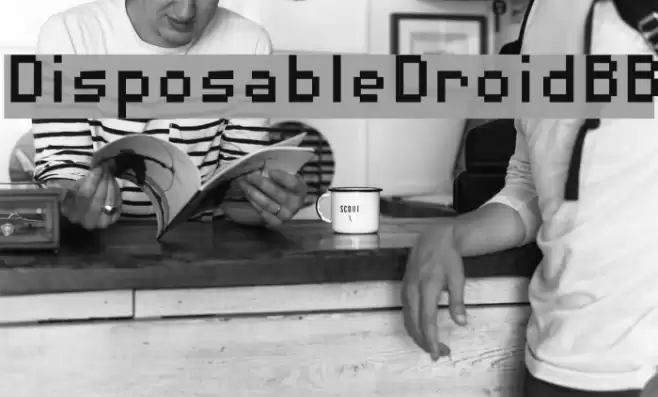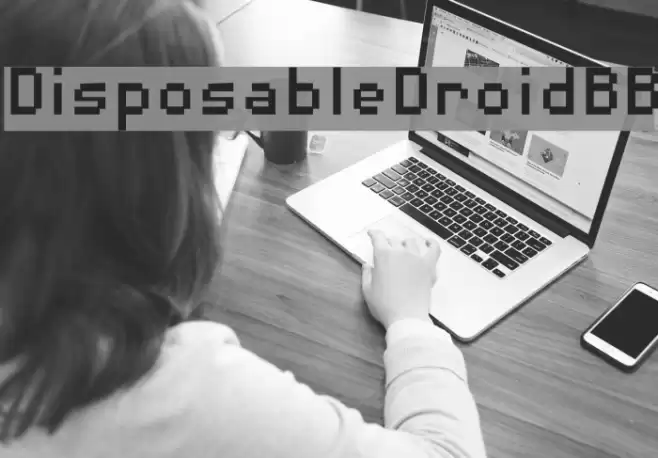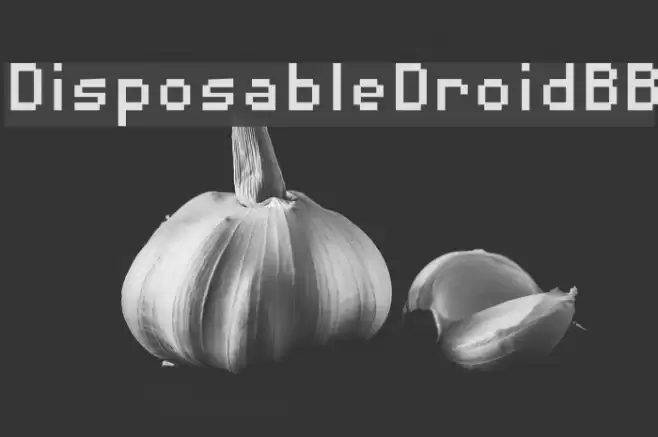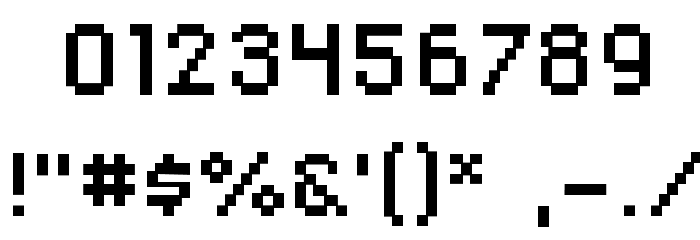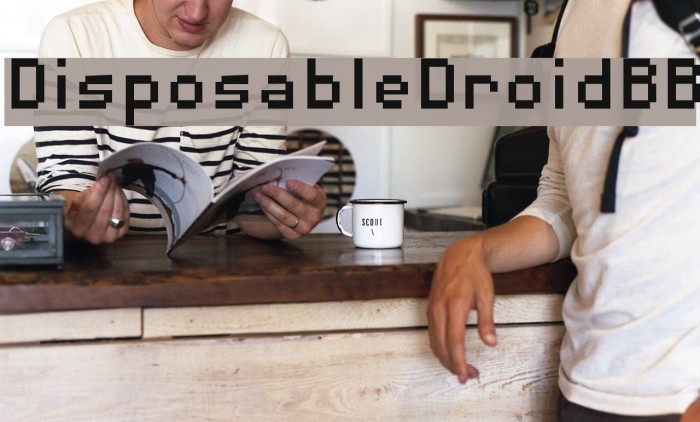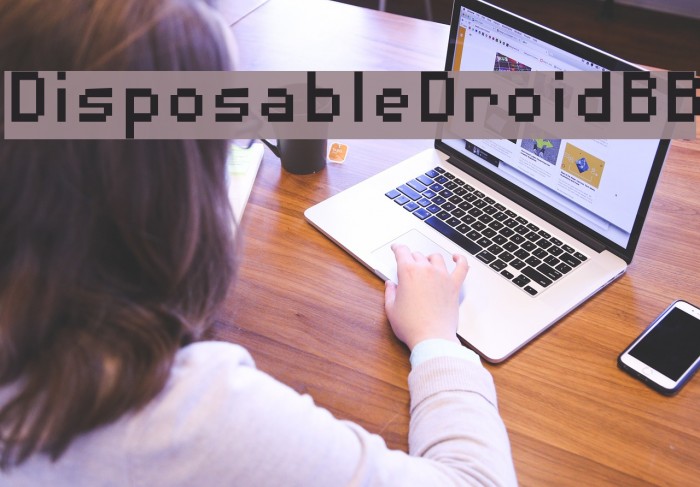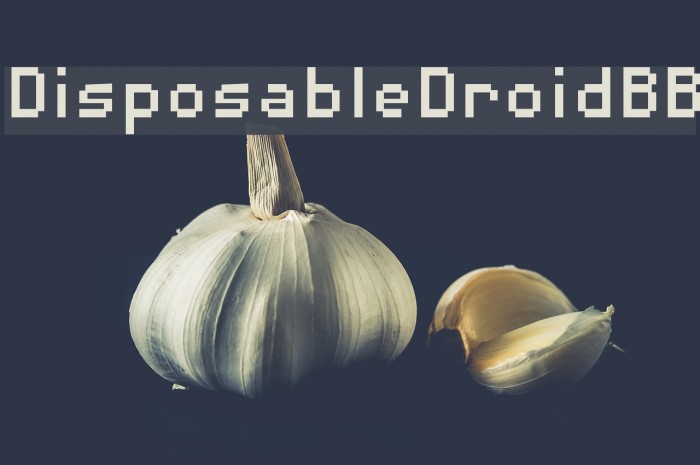
DisposableDroidBB Font
DisposableDroidBB Description
This font features a pixelated, blocky design reminiscent of early digital displays and retro video games. Each character is constructed with a uniform grid-like structure, giving it a distinctly digital and mechanical appearance. The uppercase and lowercase letters maintain a consistent height, contributing to a monospaced feel. The numerals and special characters follow the same pixelated style, ensuring uniformity across all glyphs. This font's simplicity and clarity make it ideal for projects that require a nostalgic or tech-inspired aesthetic.
A pixelated, blocky font with a retro digital style from Uncategorized fonts.
- Proposed Projects: Ideal for retro video games, tech-themed designs, digital art projects, and nostalgic branding.
- Overall Style: Retro, Digital
- Use Case: Logos, Headlines, Digital displays